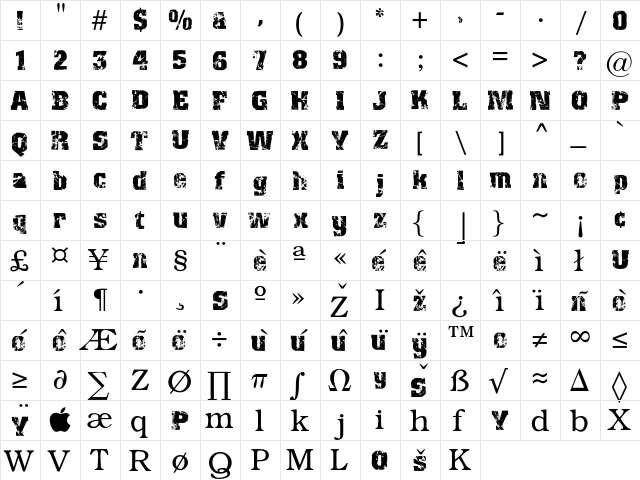
Distress Regular
Design Context for Distress Typeface
Distress embraces imperfection — its rough, textured character adds raw authenticity to designs that want to feel lived-in and unconventional.
Suited to punk-influenced zines, underground music branding, streetwear, and raw, anti-corporate design.
Pro Tip: Pair Distress with intentionally raw or lo-fi design elements. Fighting against it with overly polished surroundings will undermine its personality.